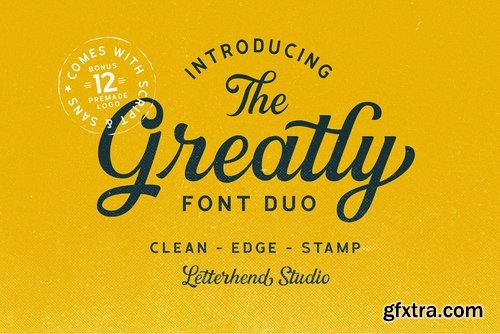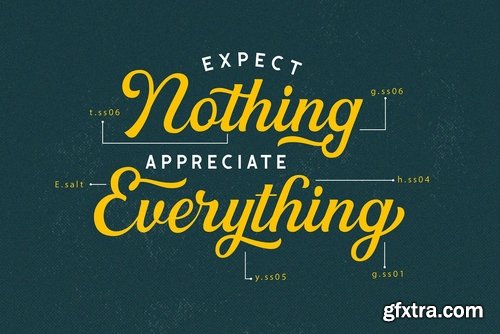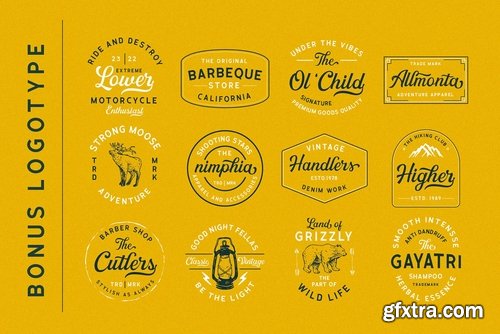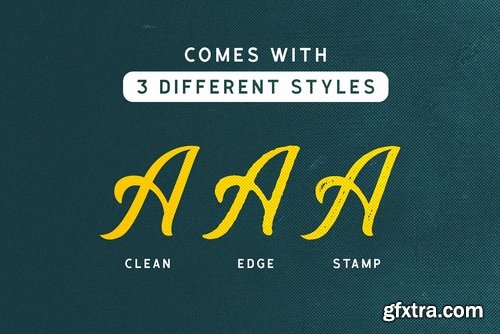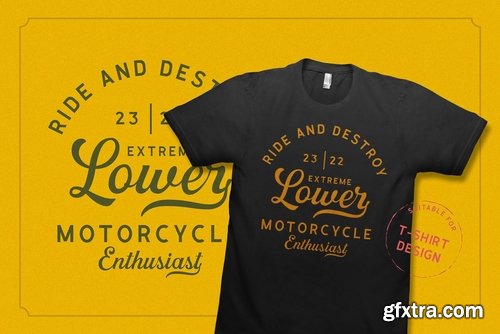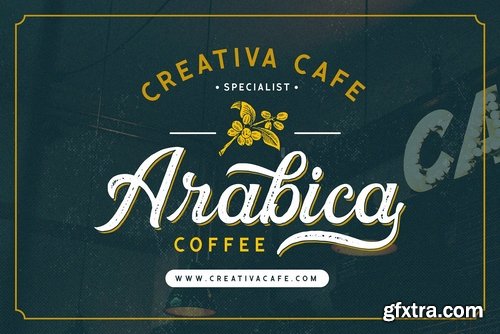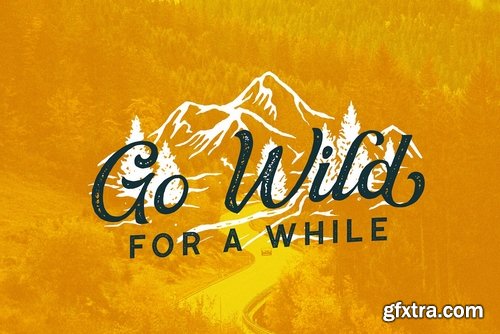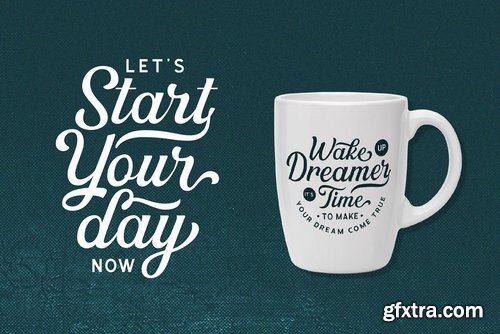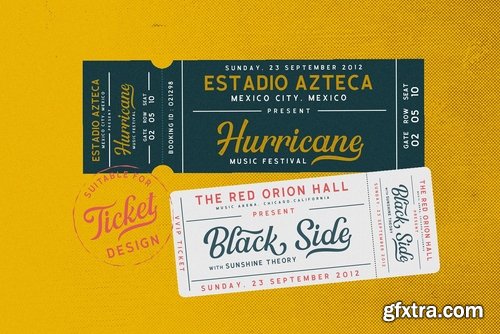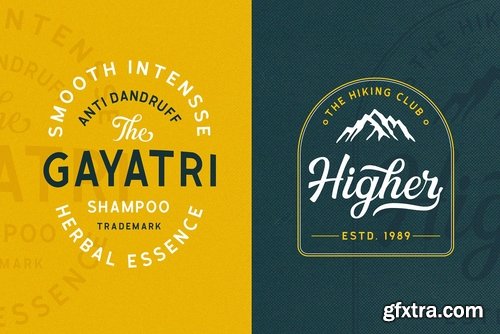
Introducing, Greatly Font Duo.
Greatly Font Duo is a pair of script and sans font that perfectly . The classic feel is really perfect for you who needs a typeface for especially logotype, apparel, invitation, branding, packaging, advertising etc. This typeface is comes in uppercase, lowercase, punctuations, symbols & numerals, stylistic set alternate, ligatures, etc also support multilingual and already PUA encoded.